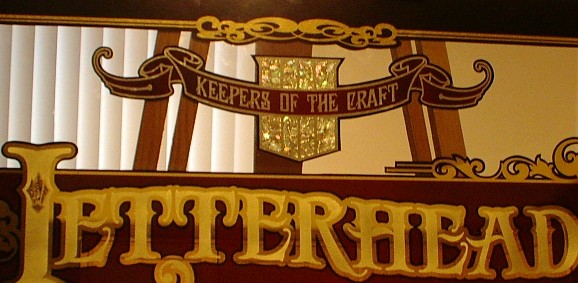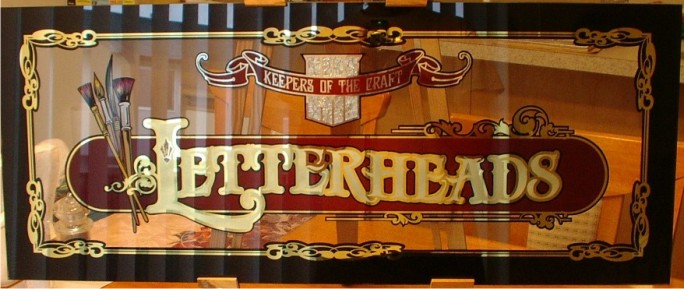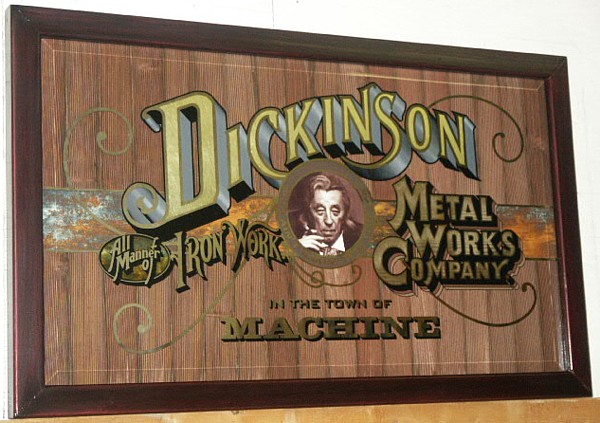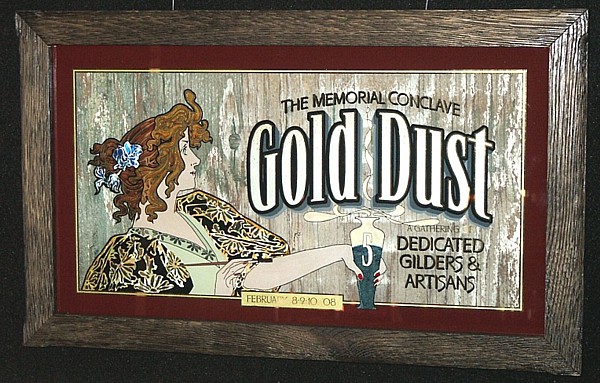
Another "sales" piece
I'm getting quite a few of these out there now. I've allways noticed the nice work that has been done at all the meets that I've not been to and have been drawing on some of them for ideas, hope you all don't mind. This is that piece of glass that had the "bug", got rid of it. I have'nt really figured what to do with the background yet, was thinking of wood. They have some really nice paneling now days. I put it up to a piece and it looked pretty good.
I think you will start to get some nice glasswork when people see these pieces Jerry.
Good luck and keep posting your works of art
Nice gilding! Very nice gilding!
Careful now! You keep that up, ya might end up with some sort of affliction!
Ya, I made sales pieces, they're all hanging in my home, or here in Machine. Guess I like 'em too much to let 'em go! I trust these will work out for you. ...and perhaps we'll be able to gild together sometime. ....sometime.
Keep up the fine work!
Oh, I did up this piece and used slats of redwood, then sandblasted it. Wood can make an interesting background. ...and if you want to change it out at a later date, you can always do that!
Dave, It would'nt stop me from gildin' if I never sold a single piece, but it sure would be nice!
Larry, I think we might be doin' some gilding together here real soon, Lookin forward to it. Thanks for always posting up examples. I think the wood will look great. You know, it hurts havin' to have all this stuff around where I can't see it, but I gotta stick to the plan... for now.
Couldn't decide on a background for this one. Found it looked pretty good against this old haggered, painted, 'n sandblasted, and weathered piece of plywood...so I went with it. Kinda reminds me of old barn hay.
Nice! It's a pretty thing that makes me want to play.
Jerry, I've found over the years that actual "client work" (extras that are made of real jobs) are the MOST advantageous sales pieces. The art pieces we do are less so although they seem to give the greatest joy in execution. When it comes to a sales tool the extras (which I make for safety) of a local pub or restaurant, which all my clients recognise, give the biggest buck bang.